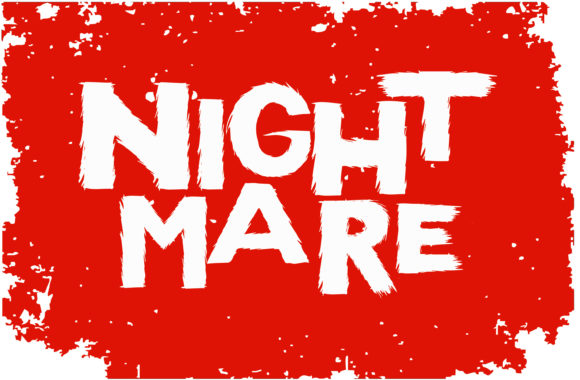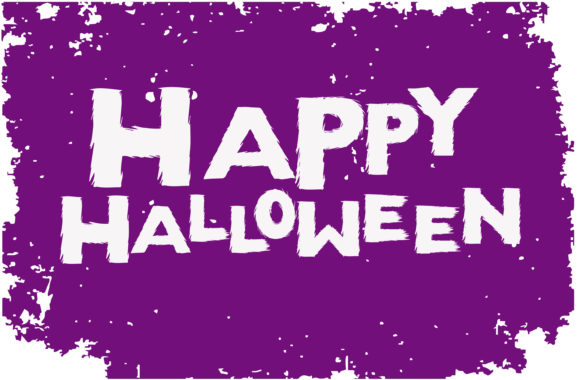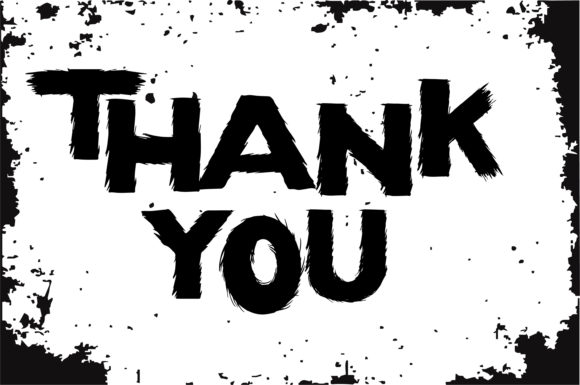
Gorilla Regas Font: Unleash Your Creativity with this Urban-Style Display Font
Are you tired of using the same old fonts in your designs? Look no further than the Gorilla Regas Font, a cool, rough-textured, and urban-style display font that’s perfect for adding a touch of edginess to your projects. This modern hand-painted font features hairy-looking font characters that are sure to grab attention and make your designs stand out.
What is Gorilla Regas Font?
Gorilla Regas Font is a unique and stylish display font that’s designed to add a touch of urban grit to your designs. With its rough, textured look and hairy font characters, this font is perfect for creating bold and eye-catching designs that demand attention. Whether you’re a designer, crafters, or DIY enthusiast, Gorilla Regas Font is a versatile and powerful tool that can help you unleash your creativity and take your designs to the next level.
Key Features of Gorilla Regas Font
- Urban-style display font: Gorilla Regas Font is a modern, urban-style display font that’s perfect for creating bold and eye-catching designs.
- Rough-textured look: The font features a rough, textured look that adds a touch of grit and edginess to your designs.
- Hairy font characters: The font characters have a hairy, hand-painted look that’s sure to grab attention and make your designs stand out.
- Hand-painted style: The font is hand-painted, giving it a unique and authentic look that’s perfect for creating one-of-a-kind designs.
- Modern and trendy: Gorilla Regas Font is a modern and trendy font that’s perfect for designers and crafters who want to stay ahead of the curve.
What Can I Use Gorilla Regas Font For?
Gorilla Regas Font is a versatile font that can be used for a wide range of design projects, including:
- T-shirts and apparel: Create bold and eye-catching designs for t-shirts, hoodies, and other apparel.
- Sportswear and athletic wear: Use Gorilla Regas Font to create high-energy designs for sportswear and athletic wear.
- Logos and branding: Create unique and memorable logos and branding materials with Gorilla Regas Font.
- Advertisements and marketing materials: Use the font to create bold and attention-grabbing advertisements and marketing materials.
- Clothing and fashion accessories: Create stylish and trendy designs for clothing and fashion accessories, such as hats, bags, and shoes.
Why Should I Use Gorilla Regas Font?
There are many reasons why you should consider using Gorilla Regas Font in your designs. Here are just a few:
- Unique and authentic look: The font has a unique and authentic look that’s sure to make your designs stand out.
- High-quality design: The font is designed with high-quality and precision, ensuring that it looks great in any design.
- Easy to use: The font is easy to use and can be easily integrated into your design workflow.
- Versatile: Gorilla Regas Font is a versatile font that can be used for a wide range of design projects.
In conclusion, Gorilla Regas Font is a cool, rough-textured, and urban-style display font that’s perfect for adding a touch of edginess to your designs. With its unique and authentic look, high-quality design, and versatility, this font is a must-have for designers and crafters who want to take their designs to the next level. So why wait? Download Gorilla Regas Font today and start creating bold and eye-catching designs that demand attention!